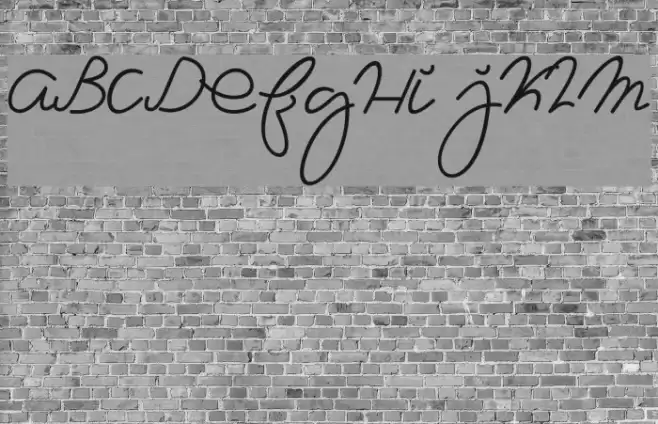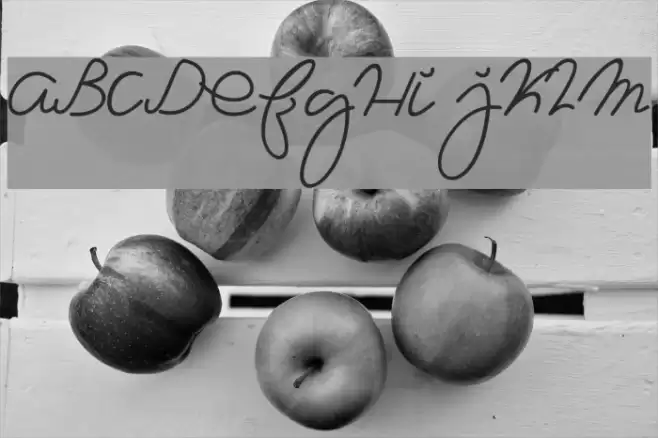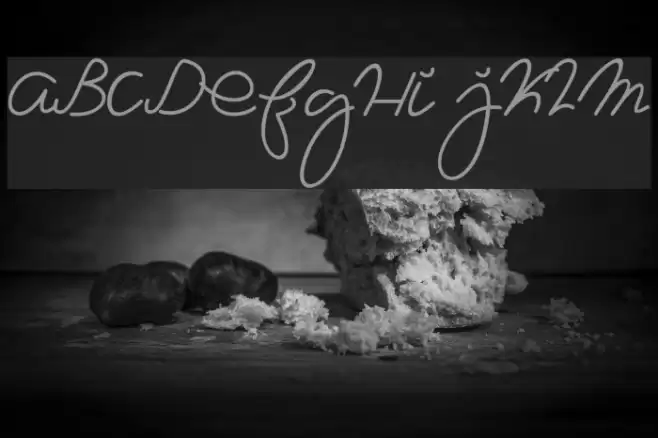
Ma Fille Font
Ma Fille Description
This font exudes a playful and casual handwritten style, characterized by its fluid and connected letterforms. The strokes are smooth and consistent, giving it a personal and informal touch. The uppercase and lowercase letters maintain a cohesive flow, making it ideal for projects that require a friendly and approachable aesthetic. The numerals and special characters are crafted with the same attention to detail, ensuring uniformity across all glyphs. This font is perfect for adding a personal touch to invitations, greeting cards, or any design that benefits from a handwritten feel.
A playful and casual handwritten font with smooth, connected strokes from Uncategorized fonts.
- Proposed Projects: Ideal for invitations, greeting cards, personal branding, and casual design projects.
- Overall Style: Casual
- Use Case: Logos, Invitations, Greeting cards